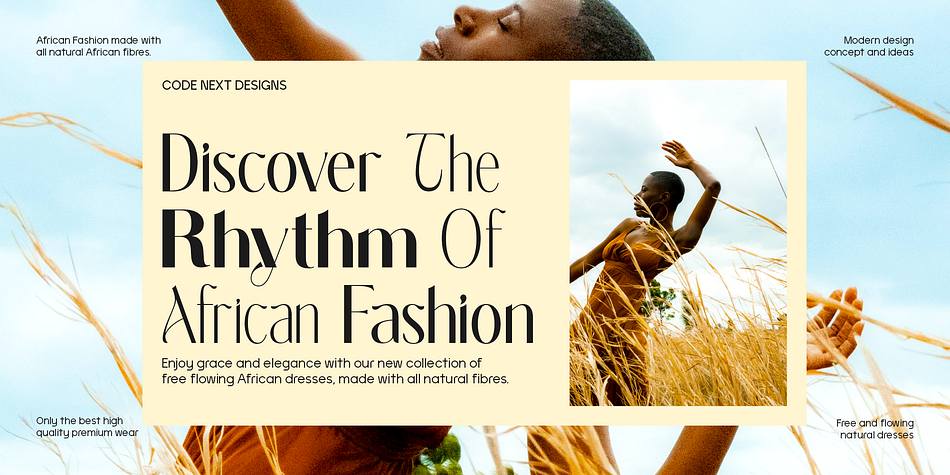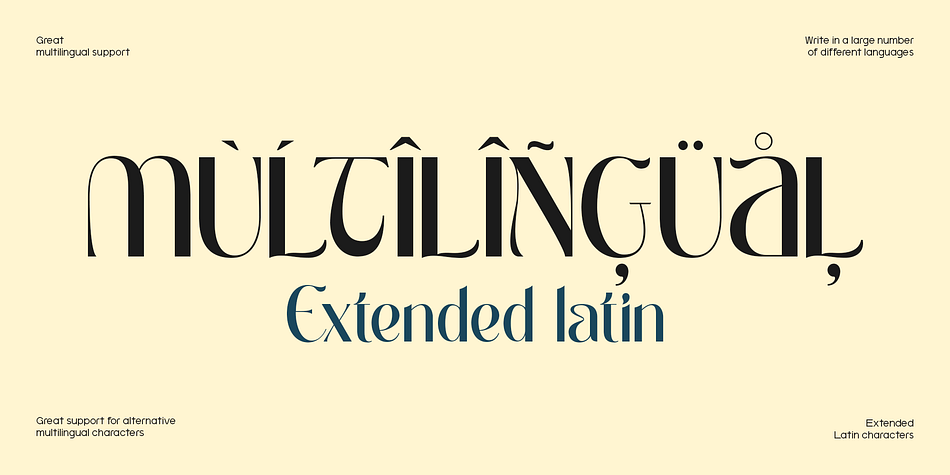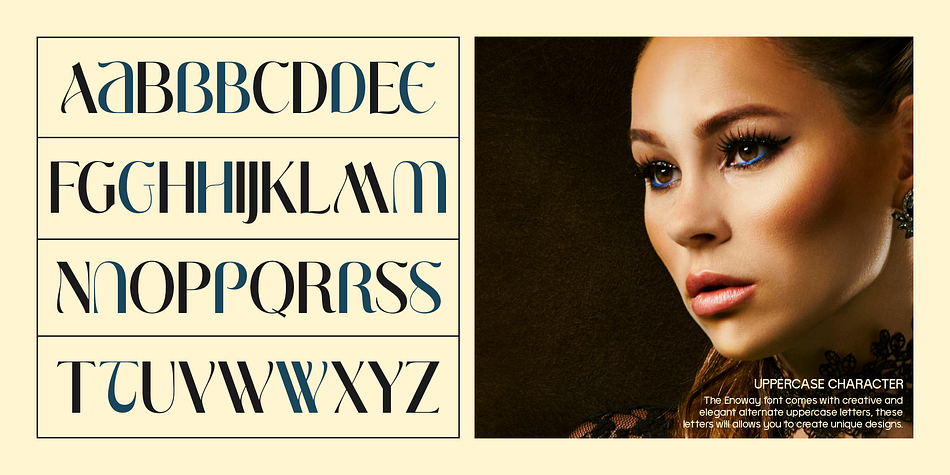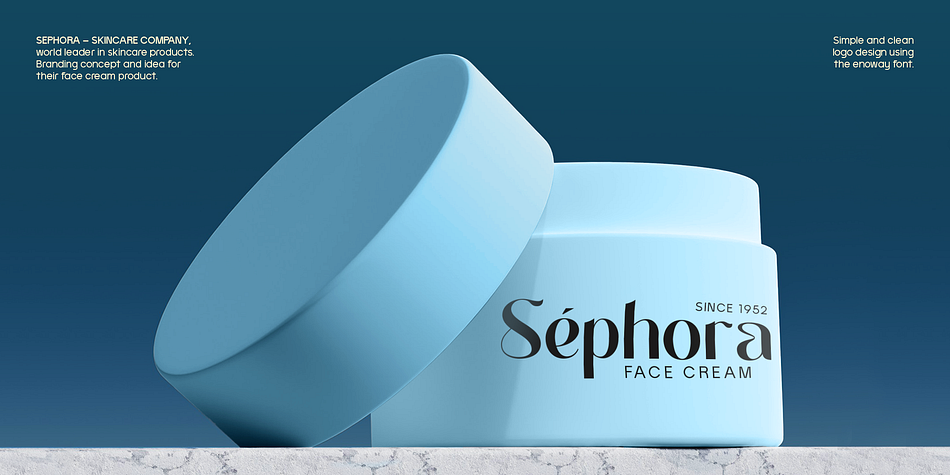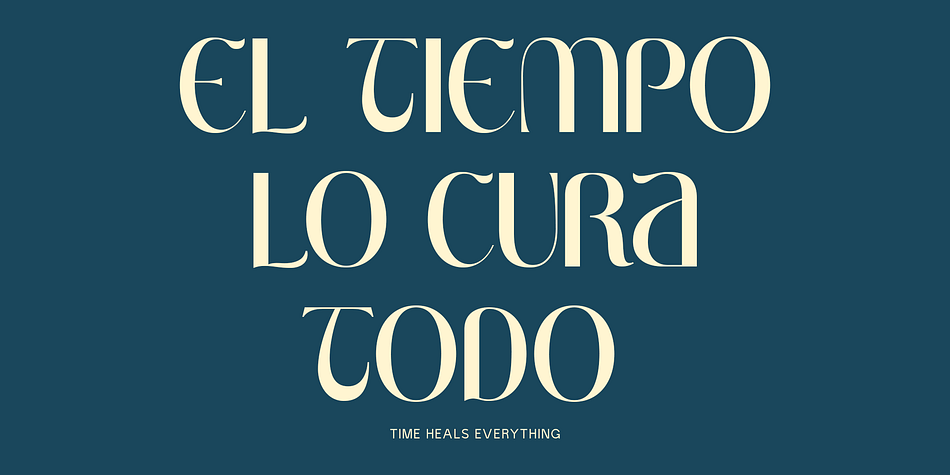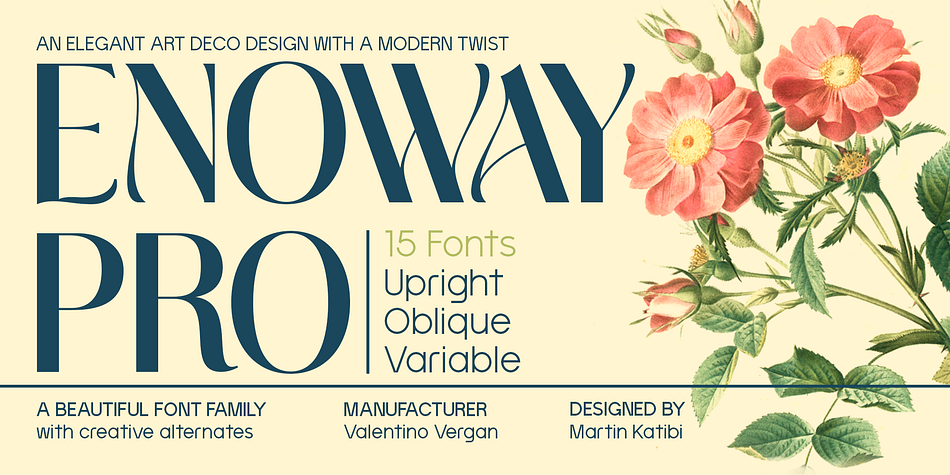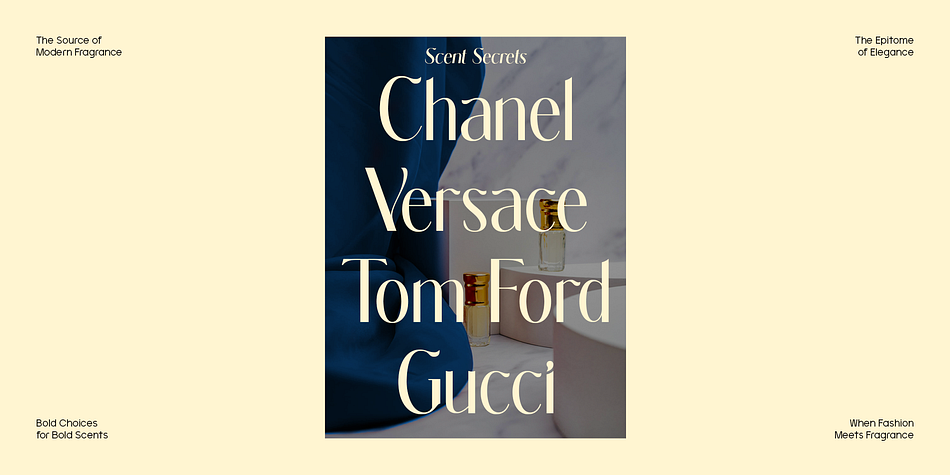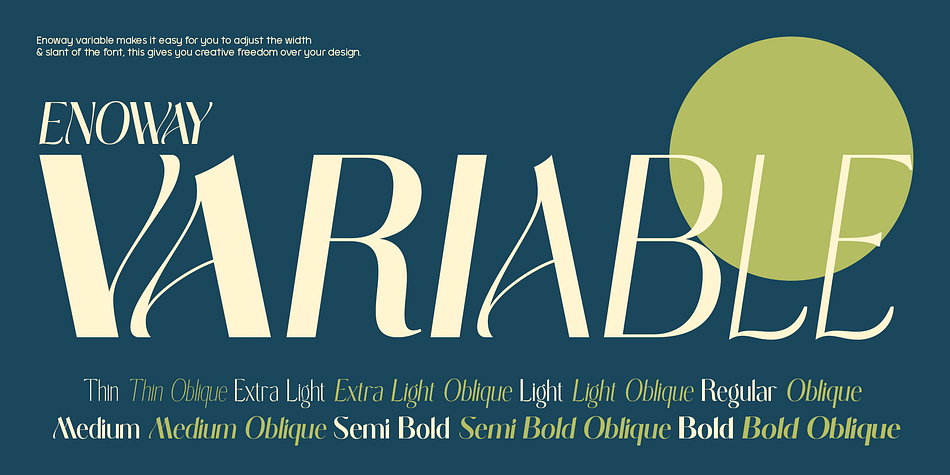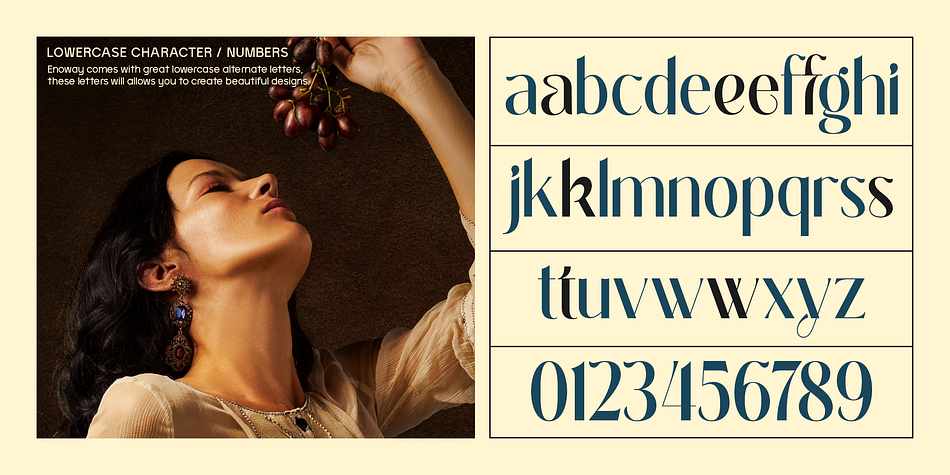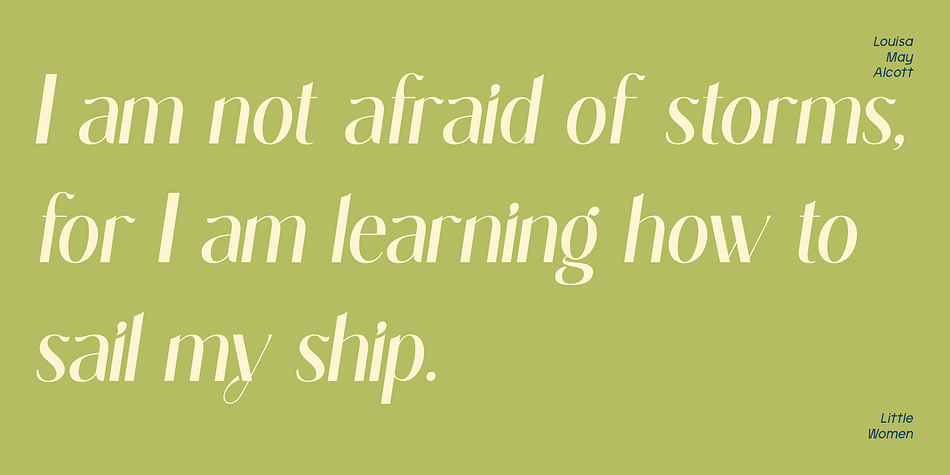
Enoway Pro
Designed by Martin Katibi, Enoway Pro is an art nouveau font family. This typeface has fifteen styles and was published by Valentino Vergan.
Enoway Pro is an expressive high-contrast serif that fuses the ornamental beauty of Art Nouveau with the bold geometry of Art Deco. Designed to turn heads in branding, editorial, packaging, and digital design, it’s a typeface that speaks with elegance and confidence.
This sophisticated family includes 15 styles—seven carefully calibrated weights with matching Obliques—plus a flexible Variable font that allows precise control across weight and slant axes. With striking contrast, unique detailing, and refined proportions, Enoway Pro is made for standout headlines, luxury logos, and beautifully styled layouts.
OpenType features such as discretionary ligatures, stylistic alternates, and multilingual support give you even more room to play. Whether you’re crafting a fashion label, a glossy magazine, or a high-end web experience, Enoway Pro delivers timeless sophistication with a modern twist.
FEATURES:
15 styles: 7 weights + matching Obliques + Variable font
OpenType features: alternates, ligatures, case-sensitive forms
Extended Latin multilingual support
Distinct Art Deco & Art Nouveau influence
Ideal for branding, editorial design, packaging & luxury web